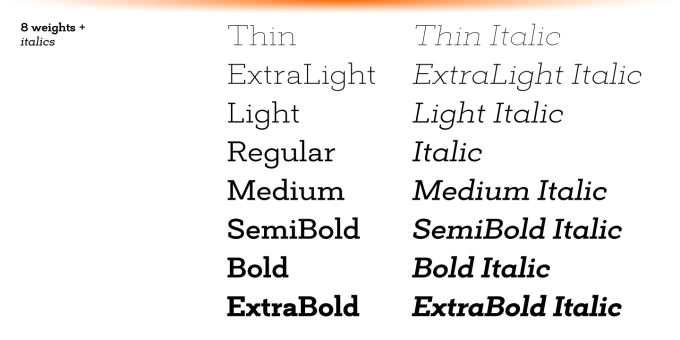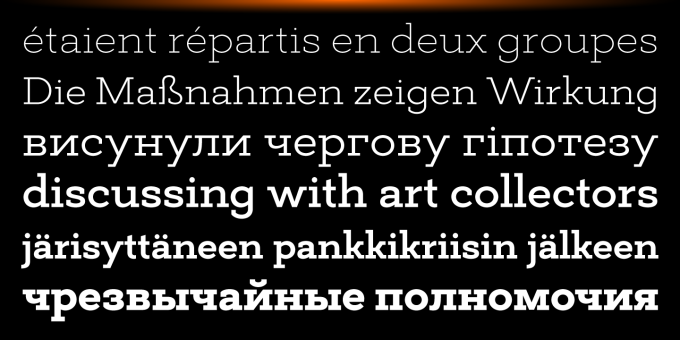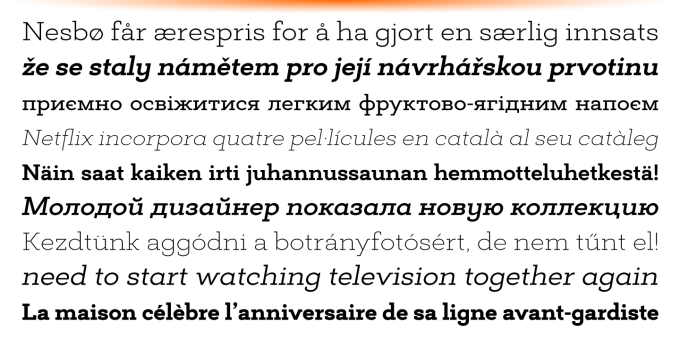
Deposit Pro
Deposit Pro is a wide slab-serif family with low x-height. In both headlines and paragraph text it creates a serious yes friendly texture, making it particularly suitable for corporate communication design.
Deposit Pro consists of 16 styles (8 weights and their italics) and features broad language support including all European Latin and Cyrillic languages. It also sports a plenty of OpenType features including 6 sets of digits, fractions, small caps, ordinals, all-cap punctuation, and contextual forms for 'f', eliminating the need for too much ligatures.